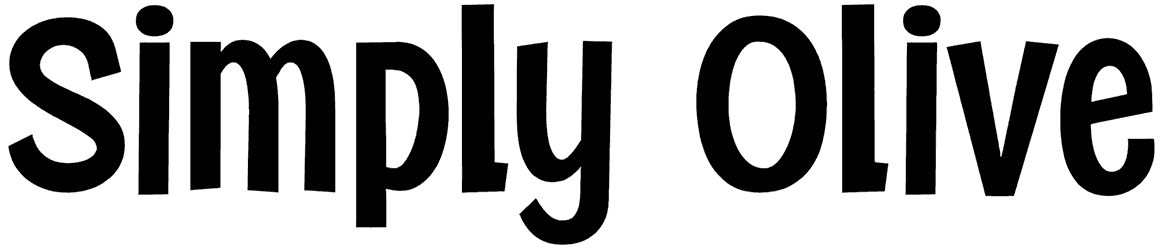
Simply Olive Font
With a modern and cute face, your design can capture a lot of attention, and this cartoon font is able to make it happen. It doesn’t include numbers but still will be a unique item for varied topics. Try Simply Olive for posters, books, logotypes, or any design that you like, and make a delightful project. Follow our website for more updates.